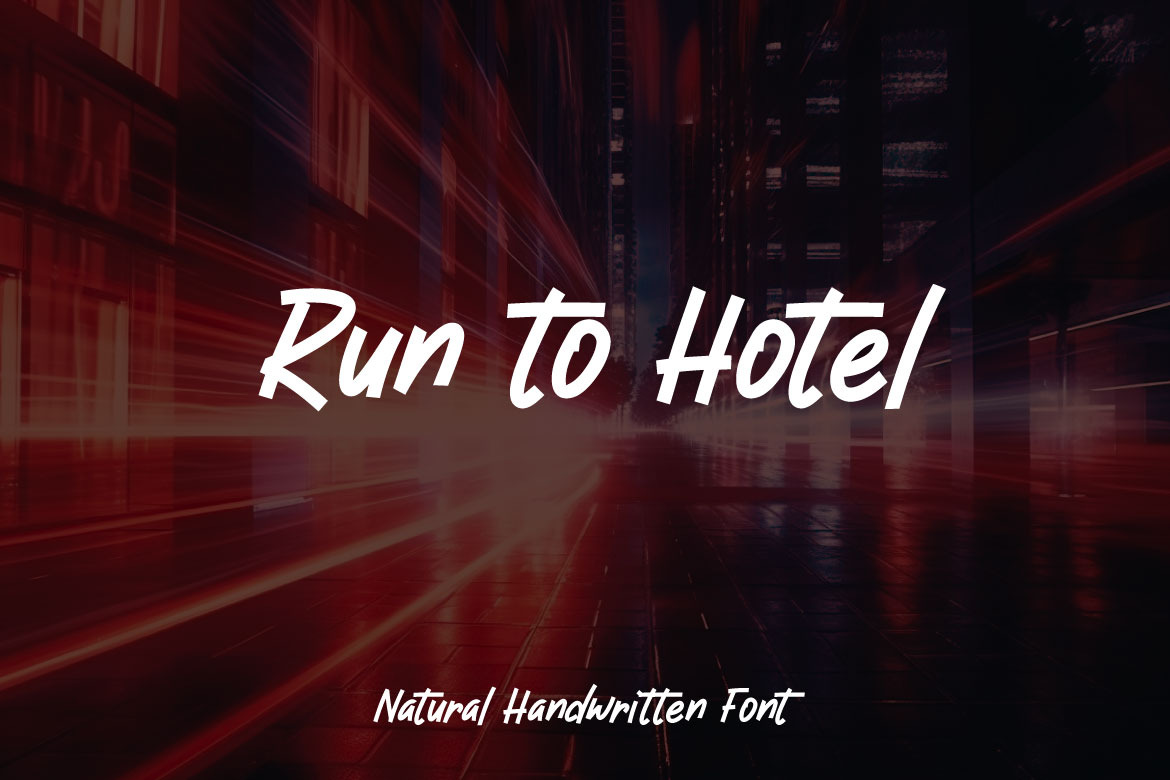
Run to Hotel - Handwriting Font
Introducing Run to Hotel, a minimalist natural handwritten font. This font is crafted with precision and care, each character in this font exudes a sense of quiet elegance. The minimalist aesthetic captures the essence of handwritten expression while maintaining a refined and uncluttered appearance. The strokes are purposeful, creating a harmonious balance between legibility and artistic flair.
Whether you're designing a modern logo, creating a sleek website, or enhancing your print materials, this font effortlessly elevates your content with a touch of understated charm. Its versatility knows no bounds, seamlessly adapting to both digital and print mediums, making it an ideal choice for various design applications.